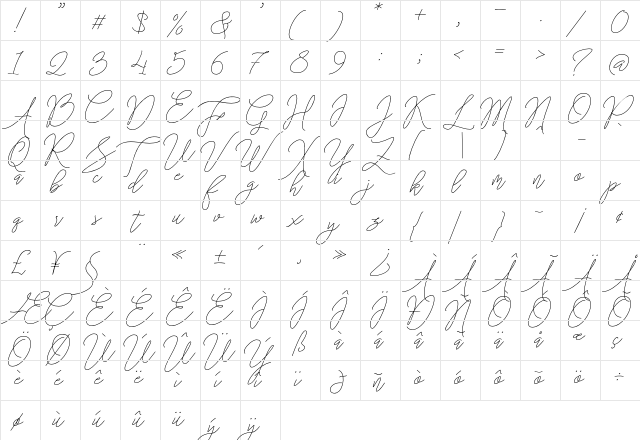
Stringlight Regular
| Foundry | Riverside Digital Type Foundry |
| Designer | Riverside Digital Type Foundry |
Design Context for Stringlight Typeface
Stringlight is a composed and adaptable typeface that performs quietly and consistently across a wide range of design contexts. The delicate stroke weight brings airiness and refinement to layouts.